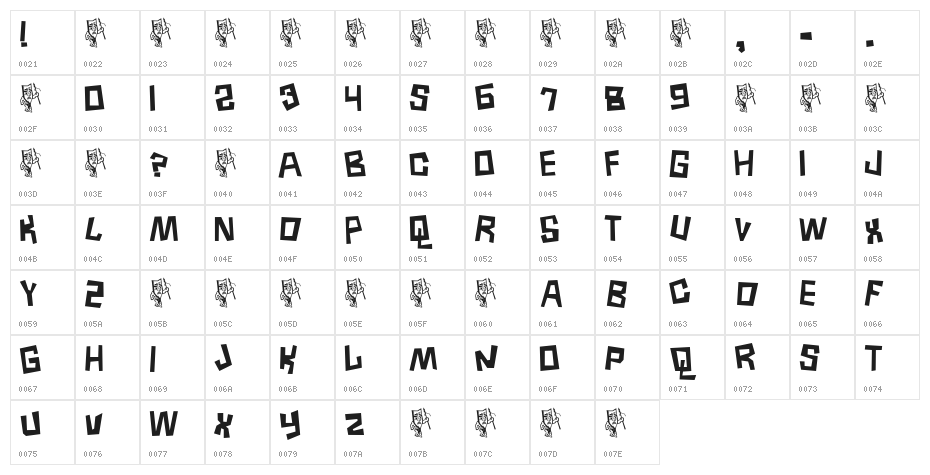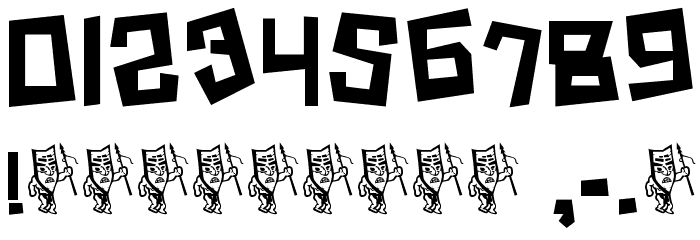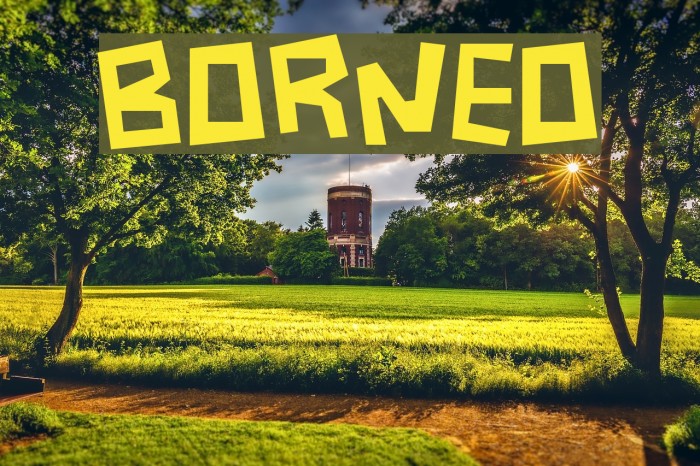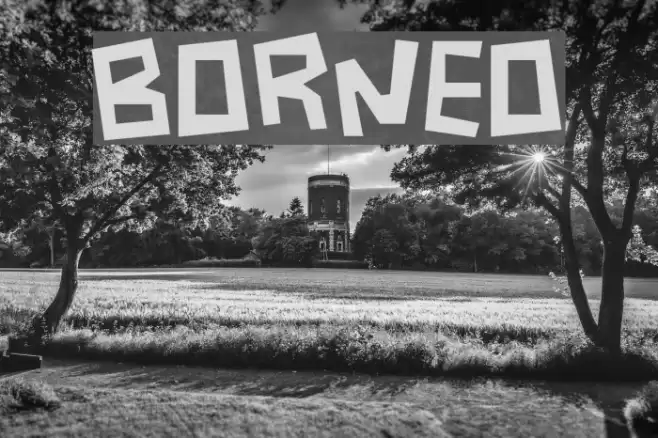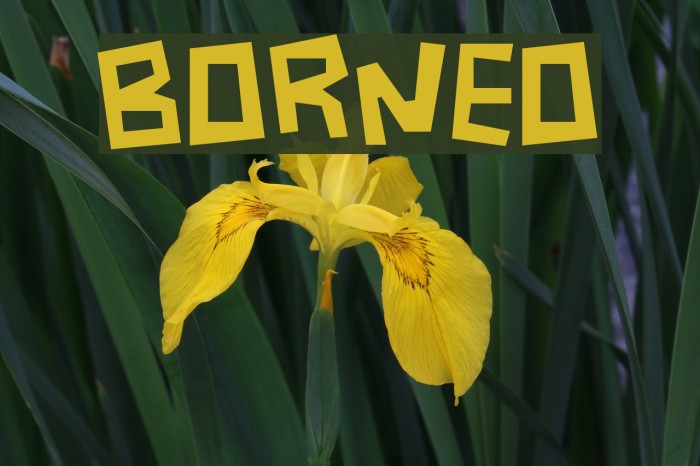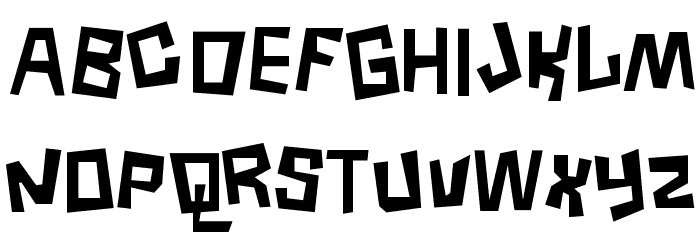
Borneo Font
This font features a bold and playful design with a unique, irregular shape for each character. The letters have a hand-drawn, whimsical quality, making them stand out with their quirky angles and uneven lines. The uppercase and lowercase letters maintain a consistent style, adding to the font's cohesive look. Numbers and special characters are designed with the same playful aesthetic, ensuring a uniform appearance across all text. The font's boldness and distinctive style make it ideal for creative and eye-catching designs.
| Overall Style | Playful, Whimsical |
| Use Case | Headlines, Posters, Creative Projects |
| Proposed Projects | Perfect for children's books, playful branding, posters, and creative projects that require a fun and engaging typeface. |